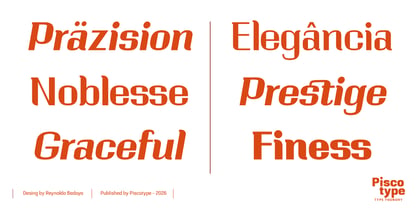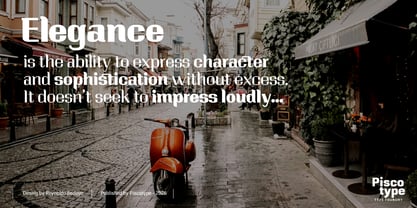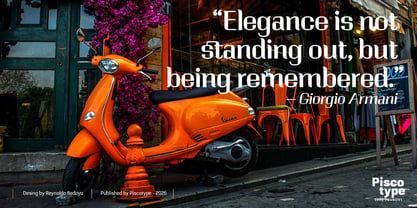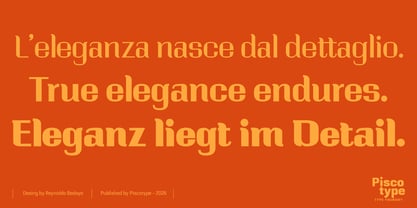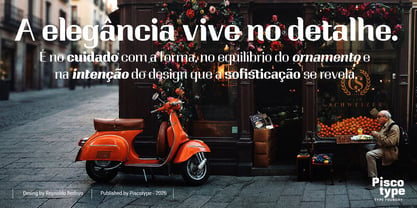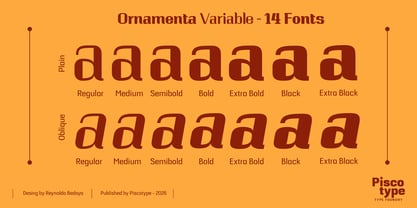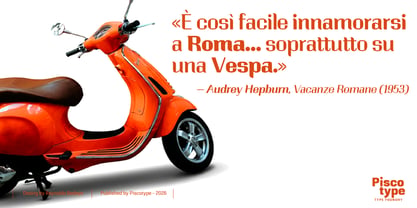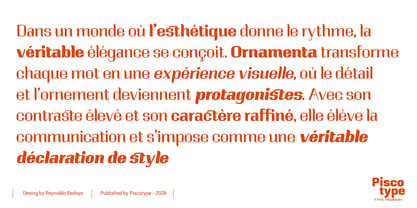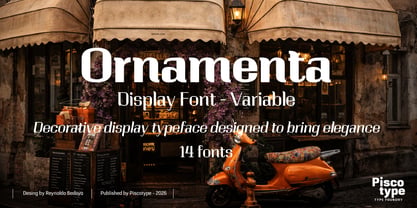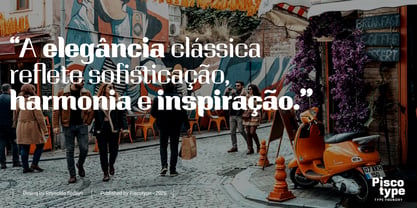
Ornamenta
by Piscotype
The Ornamenta Font Family was designed by Reynaldo Bedoya and published by Piscotype. Ornamenta contains 15 styles and family package options. More about this family
Ornamenta is a decorative display typeface designed to bring elegance, expression, and sophistication to visual identity projects. Its high-contrast structure and refined ornamental details create a distinctive voice that balances classic adornment with a contemporary sensibility. Ornamenta is conceived as an expressive tool, where decoration is intentional and form plays a central role in communication. The family includes 14 styles, covering a wide range of weights with matching obliques, offering designers flexibility to build dynamic hierarchies and expressive compositions. Ideal for branding, editorial headlines, packaging, and cultural projects, Ornamenta excels in applications where personality, elegance, and visual impact are essential. It is a typeface created to elevate design through detail, contrast, and character.
Designers: Reynaldo Bedoya
Foundry: Piscotype
Piscotype is an independent type foundry based in Peru, born from a desire to create typefaces that are not only functional, but full of life, soul, and narrative. With deep Latin American roots and a clear modern vision, Piscotype aims to challenge the visual standards of global typography by offering a fresh alternative: fonts with personality, intention, and cultural resonance.In a world increasingly dominated by uniformity and neutral aesthetics, Piscotype seeks to build its own path—one where typography is not just a tool, but a voice. Our designs are grounded in concept and crafted with visual sensitivity, blending tradition with innovation. Whether inspired by the textures of an old hacienda, the rhythm of regional scripts, or the boldness of modern expression, each typeface is a visual statement.We believe typography is more than letters—it’s a way of storytelling. That’s why our fonts are designed to evoke emotion, spark identity, and stand out. Piscotype is for those who believe that design should have depth, and that every letter carries meaning.Our vision is to build a new Latin-American typographic voice: bold, creative, expressive—and global.